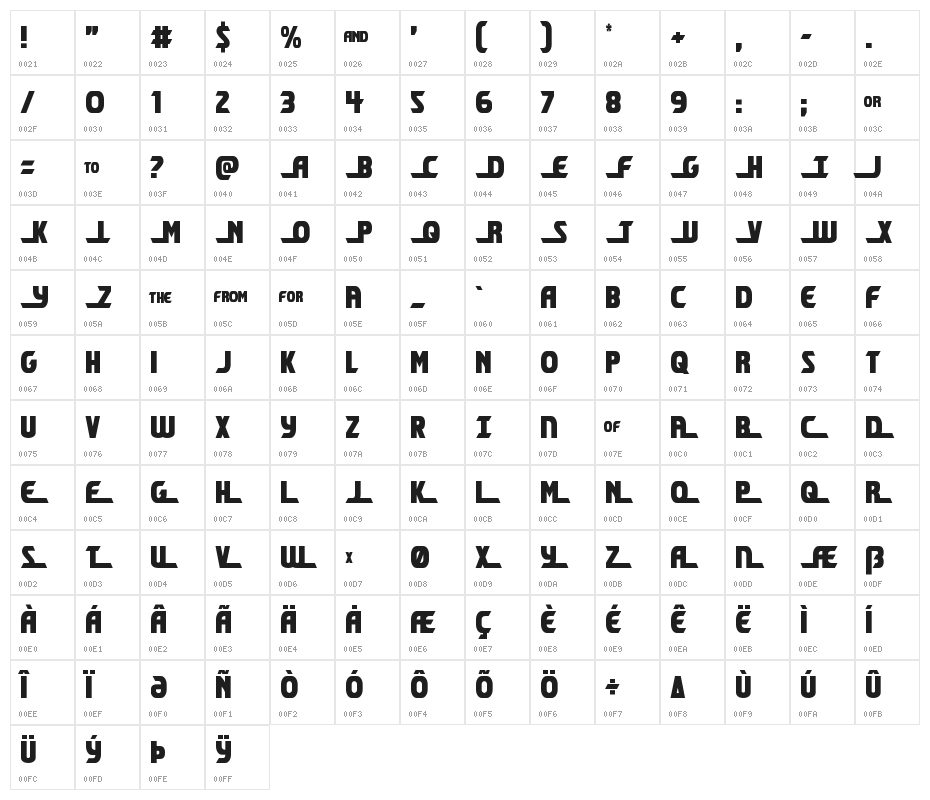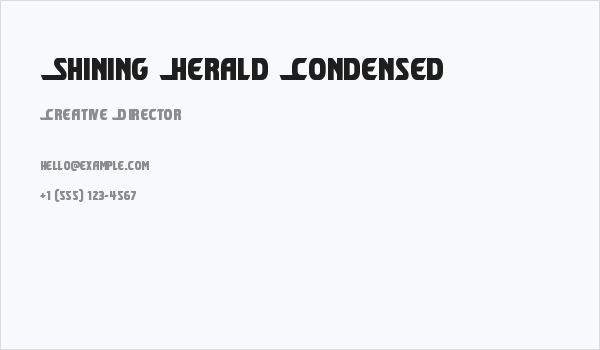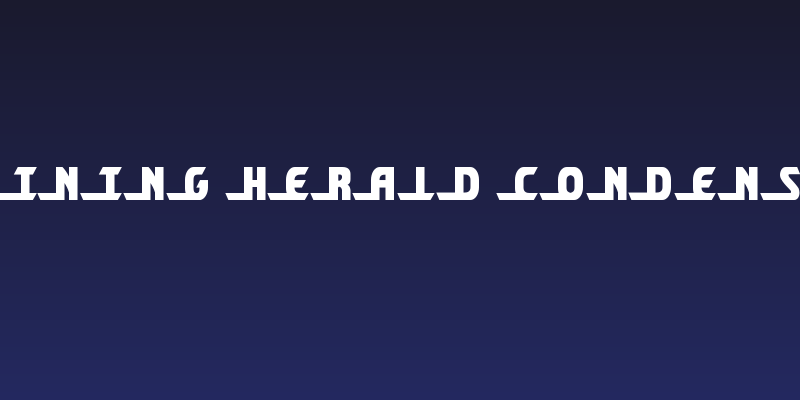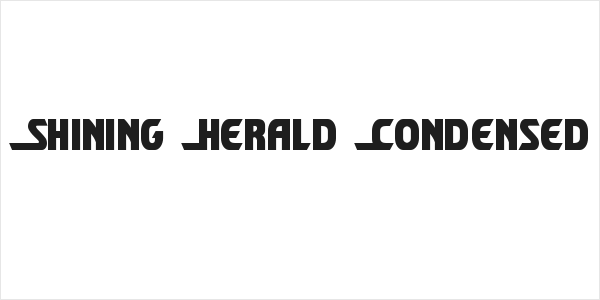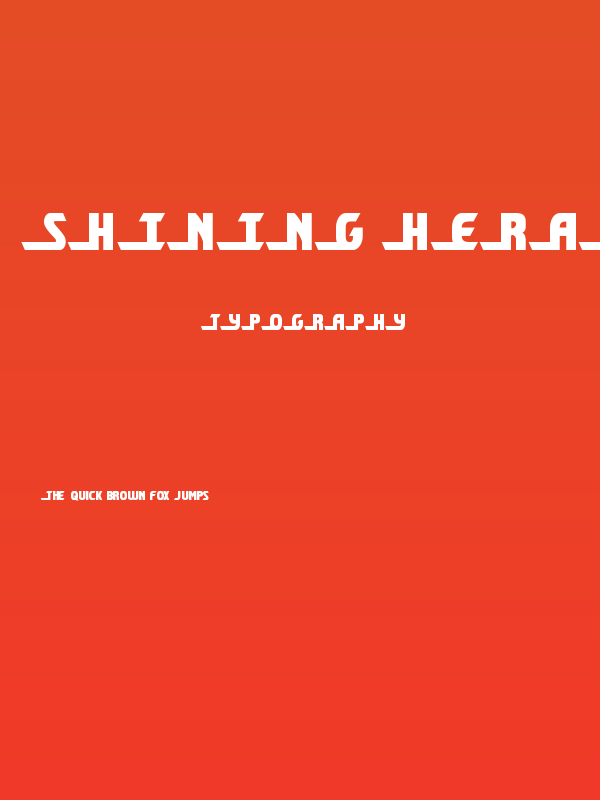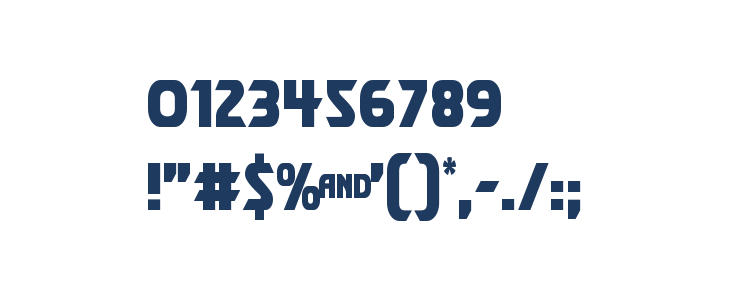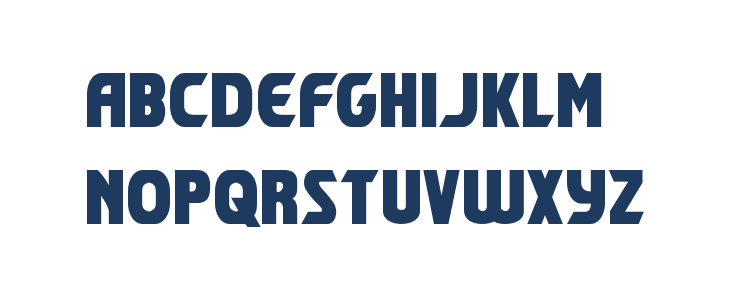
Shining Herald Condensed Font
Shining Herald Condensed Description
This font features a bold and striking design with a condensed structure, making it ideal for impactful headlines and attention-grabbing displays. The uppercase letters have a strong geometric influence, with sharp angles and clean lines that convey a sense of modernity and strength. The lowercase letters maintain the same boldness, ensuring consistency across different text cases. Numbers and special characters are equally robust, designed to stand out and complement the overall aesthetic. The font's condensed width allows for efficient use of space, making it suitable for various design applications where space is a premium. Its high contrast between thick and thin strokes adds to its dynamic appearance, enhancing readability while maintaining a unique style.